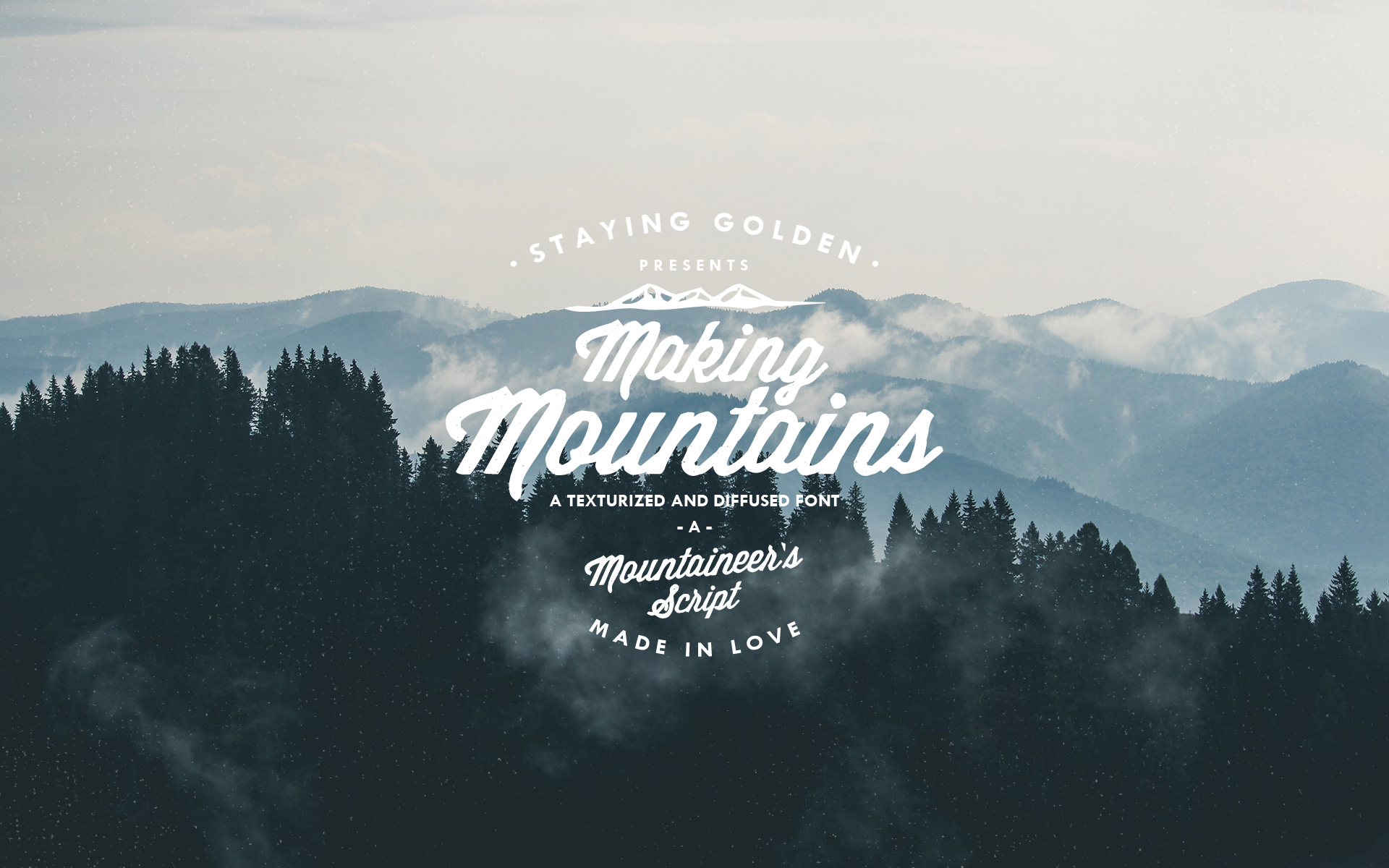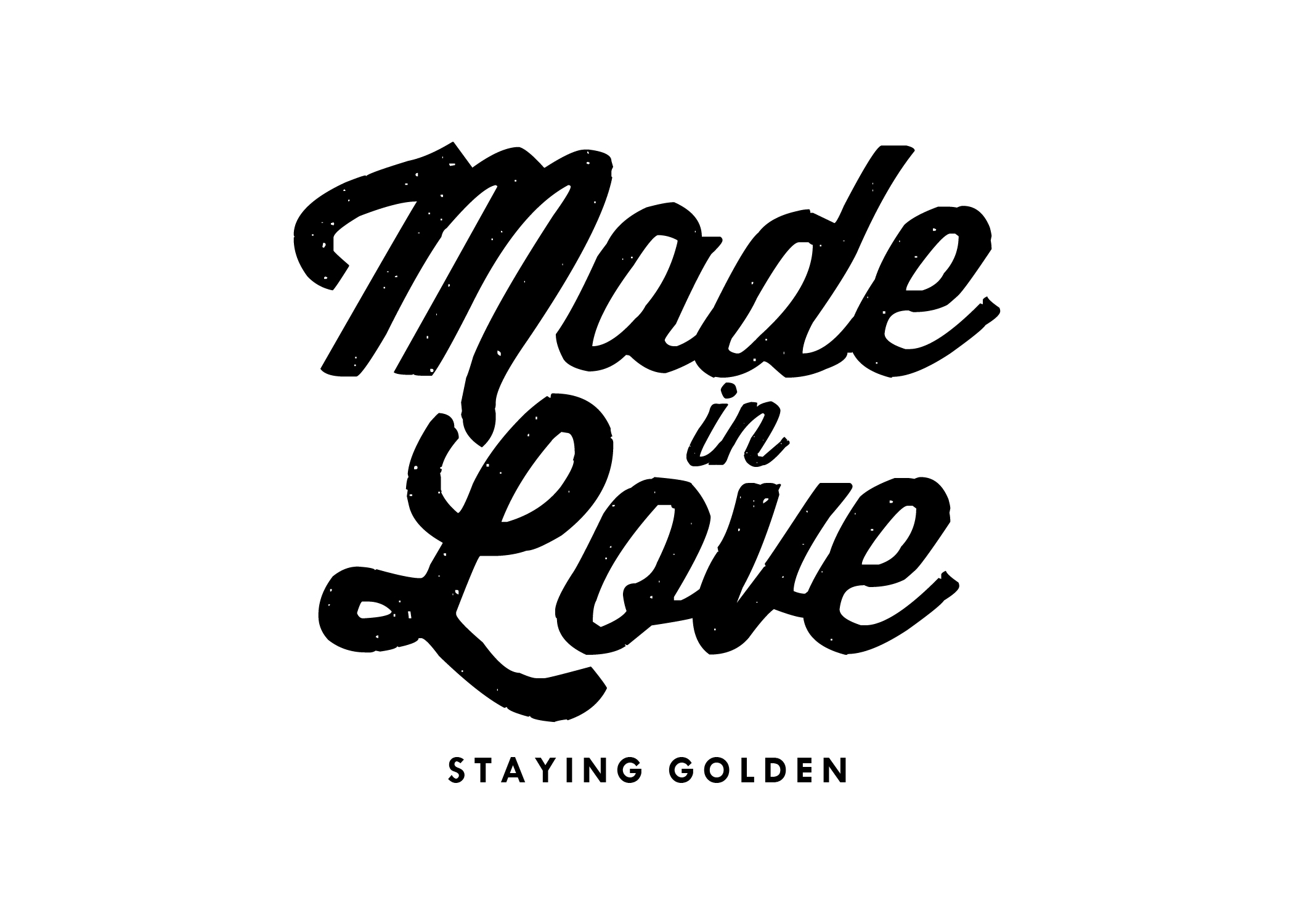
HomeScript FontsMaking Mountains Font Script Fonts Making Mountains Font FacebookXPinterestWhatsApp Making Mountains Font Poster 2 About Making Mountains Font Making Mountains, a textured and diffused font. This font was created in collaboration with Strange Type. DOWNLOAD NOW People also explored Sweet Panda Font Bramble Princess Font Ashlynn Yadira Font Bryan Abimanyu Font Samy Font Kamalika Anotesla Font Second of March Font Devinno Font Alocasia Font 316 0 TagsMaking Mountains Font Previous articleEven More Mixed Up FontNext articleBonito Font LEAVE A REPLY Cancel reply Comment: Please enter your comment! Name:* Please enter your name here Email:* You have entered an incorrect email address! Please enter your email address here Website: Save my name, email, and website in this browser for the next time I comment. Personal Use Free Elliane Personal Use Free Read more about this font BD Pipe Personal Use Free Read more about this font Setta Personal Use Free Read more about this font Child Witch Personal Use Free Read more about this font BLOG How to Cut Any Font on Cricut: Convert a Font to SVG (Free) Turn any font into a clean SVG so it cuts crisp on Cricut - a quick 3-step workflow using a free font-to-SVG tool. Where to Buy American Fonts Online in 2024 Transform Your Website: Elevate Your Typography with 7 Best Web Font Generators Elegant Wedding Invitation Fonts – Handwritten & Script Fonts